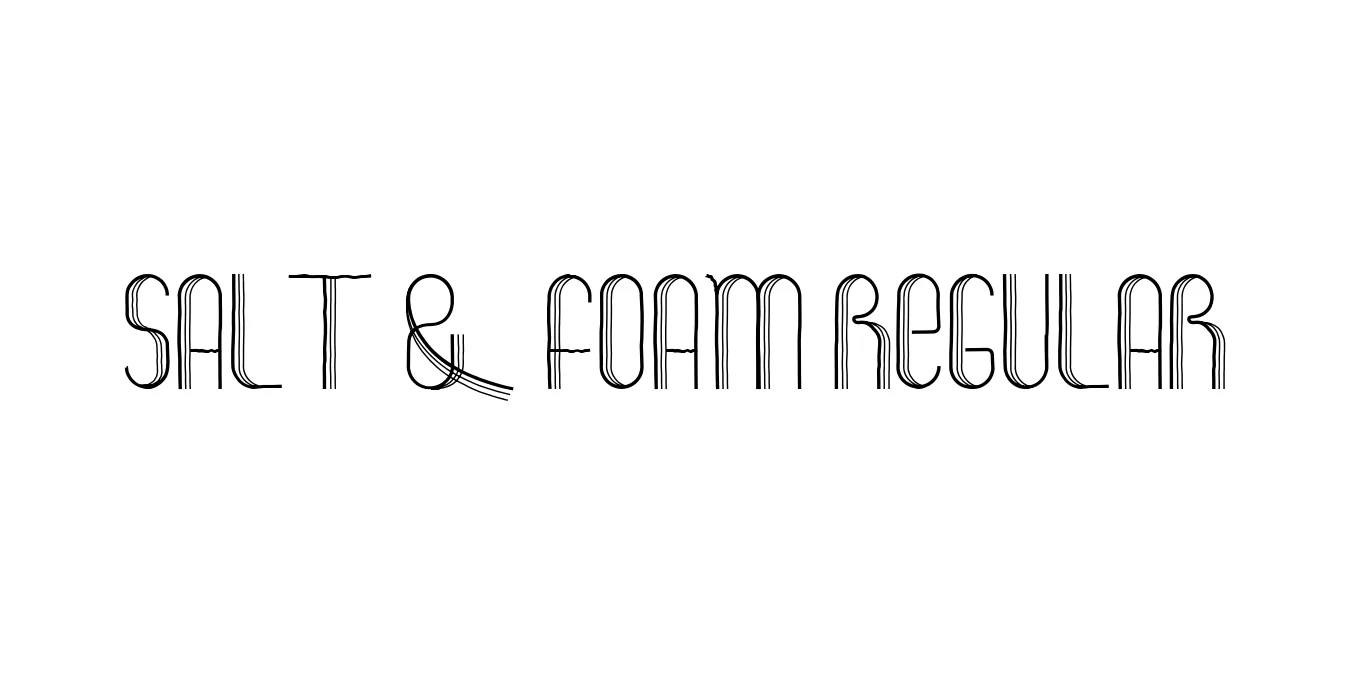
Salt & Foam Regular
Designed by Jeremy Vessey (Hustle Supply Co.)
Salt & Foam Regular is a meticulously crafted hand-drawn typeface that embodies the laid-back, organic essence of coastal living. Designed by Jeremy Vessey, this font features a distinctively human touch with its subtle stroke irregularities and relaxed geometry, making it a versatile choice for designers aiming for an authentic, non-corporate aesthetic.
This typeface excels in lifestyle branding and editorial design, where a sense of craftsmanship and nostalgia is required. Its airy feel and minimalist structure allow it to pair seamlessly with high-quality photography and clean layouts, bridging the gap between rustic charm and modern design principles.
Salt & Foam Regular Best Uses
Ideal for logo designs and brand identities for boutique labels and surf shops.
Perfect for creating engaging, aesthetic quotes and story overlays on Instagram.
Works beautifully for magazine headers, travel journals, and lifestyle blogs.
Excellent for organic product labels and eco-friendly packaging designs.